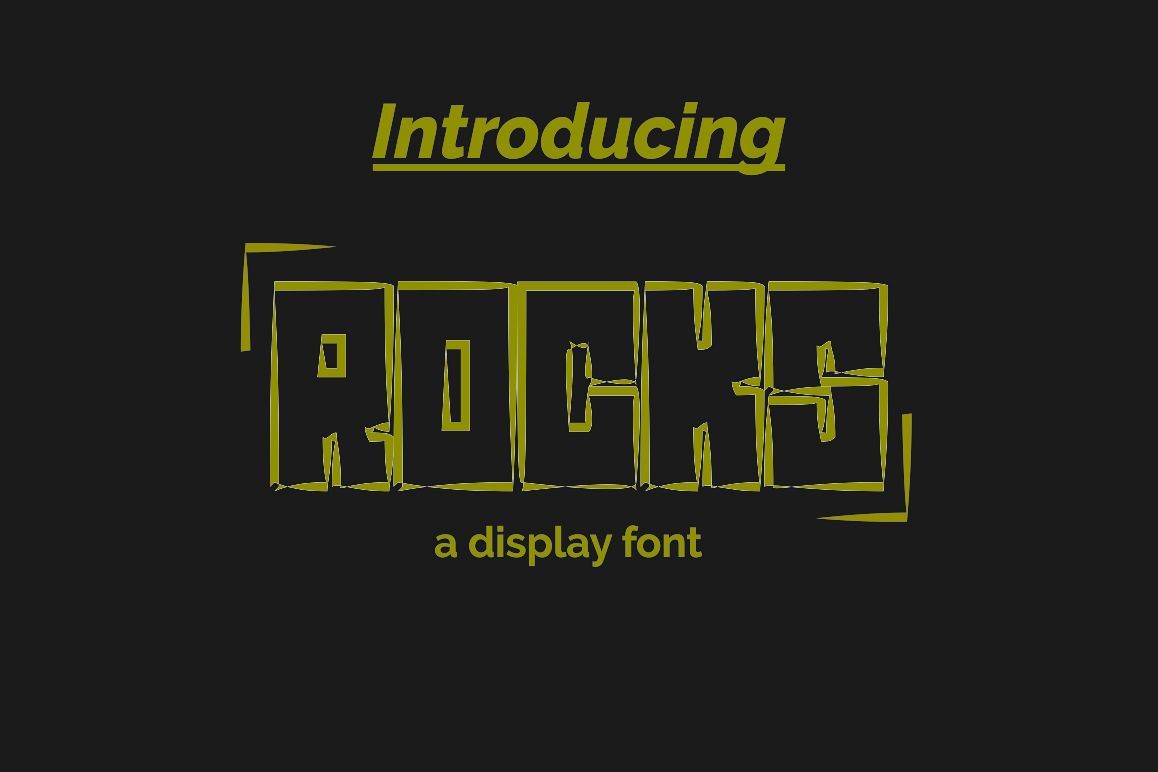
ROCKS Font
Rocks Font is a display font can be used for casual-design, sport-design, art-design. Rocks Font have three variants, namely Regular Rocks, Italic Rocks, Hollow Rocks. Enjoy with my font and grab it.